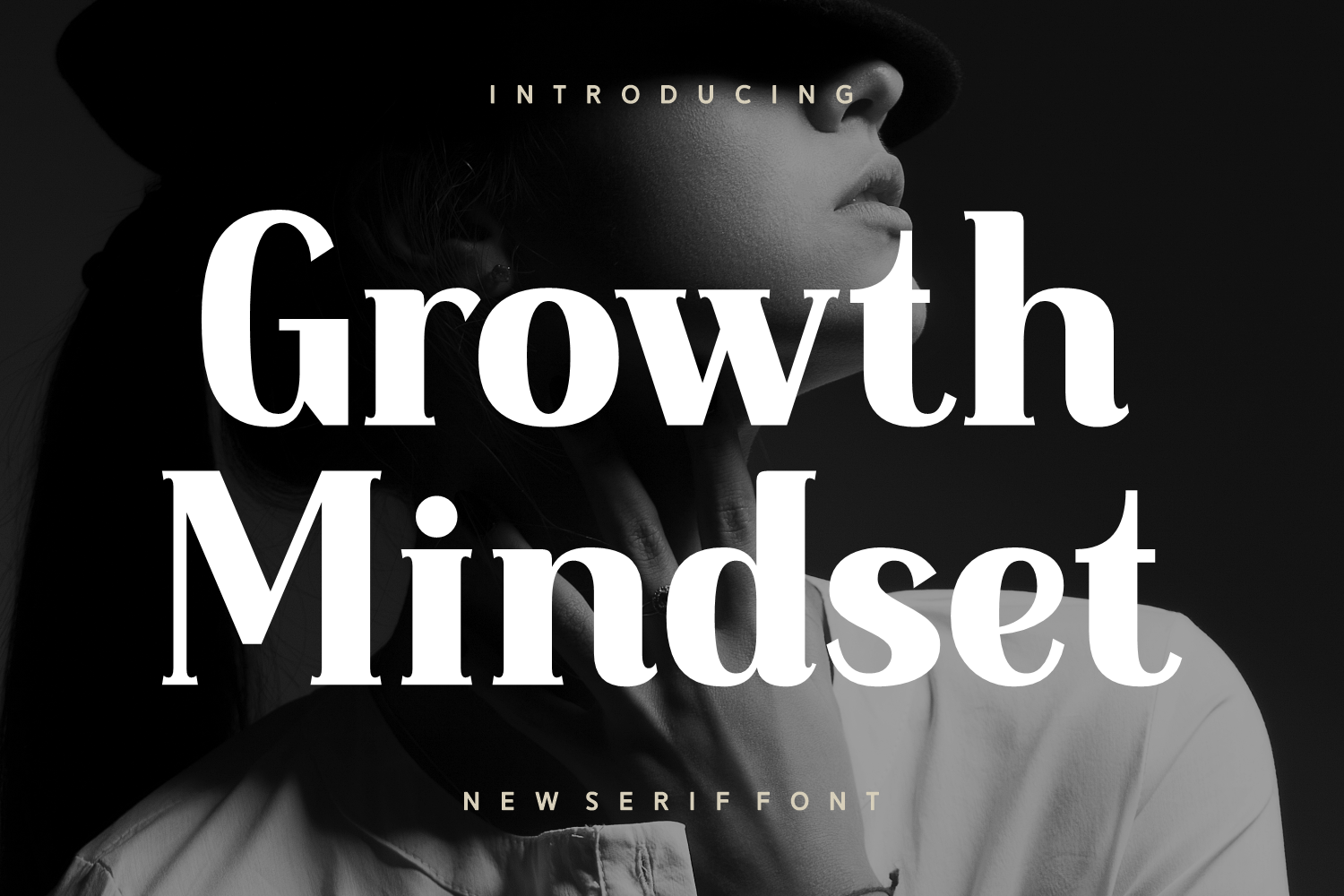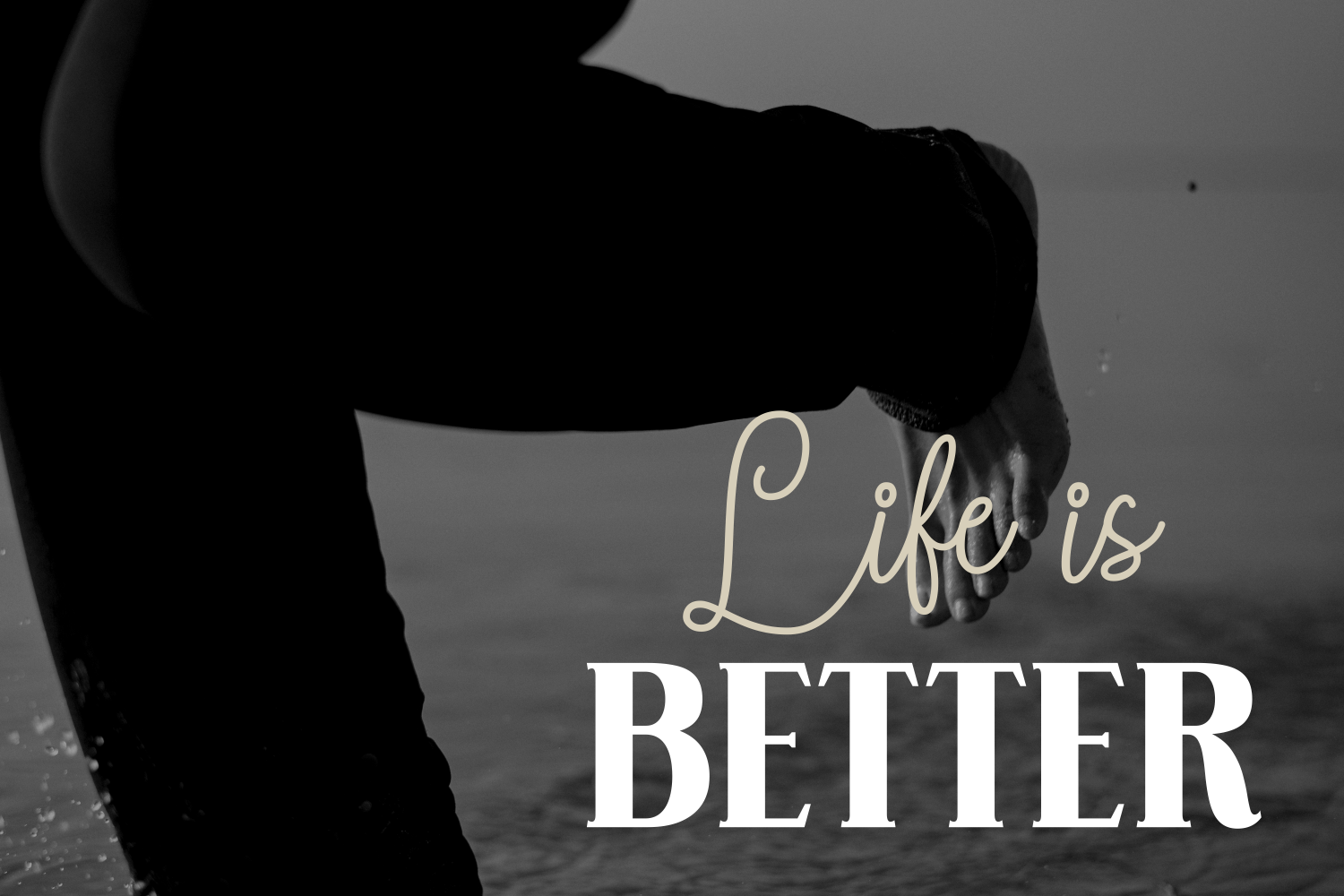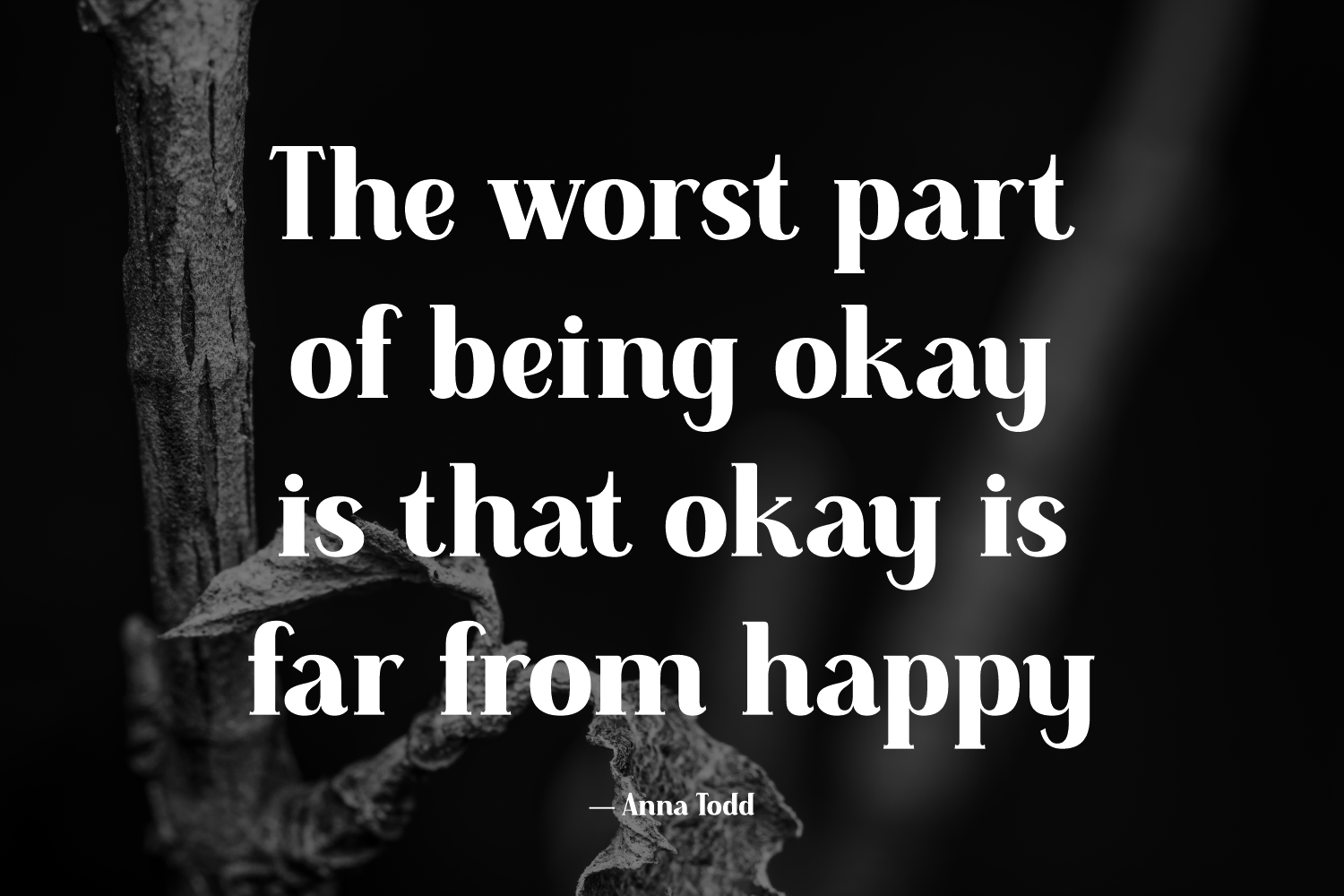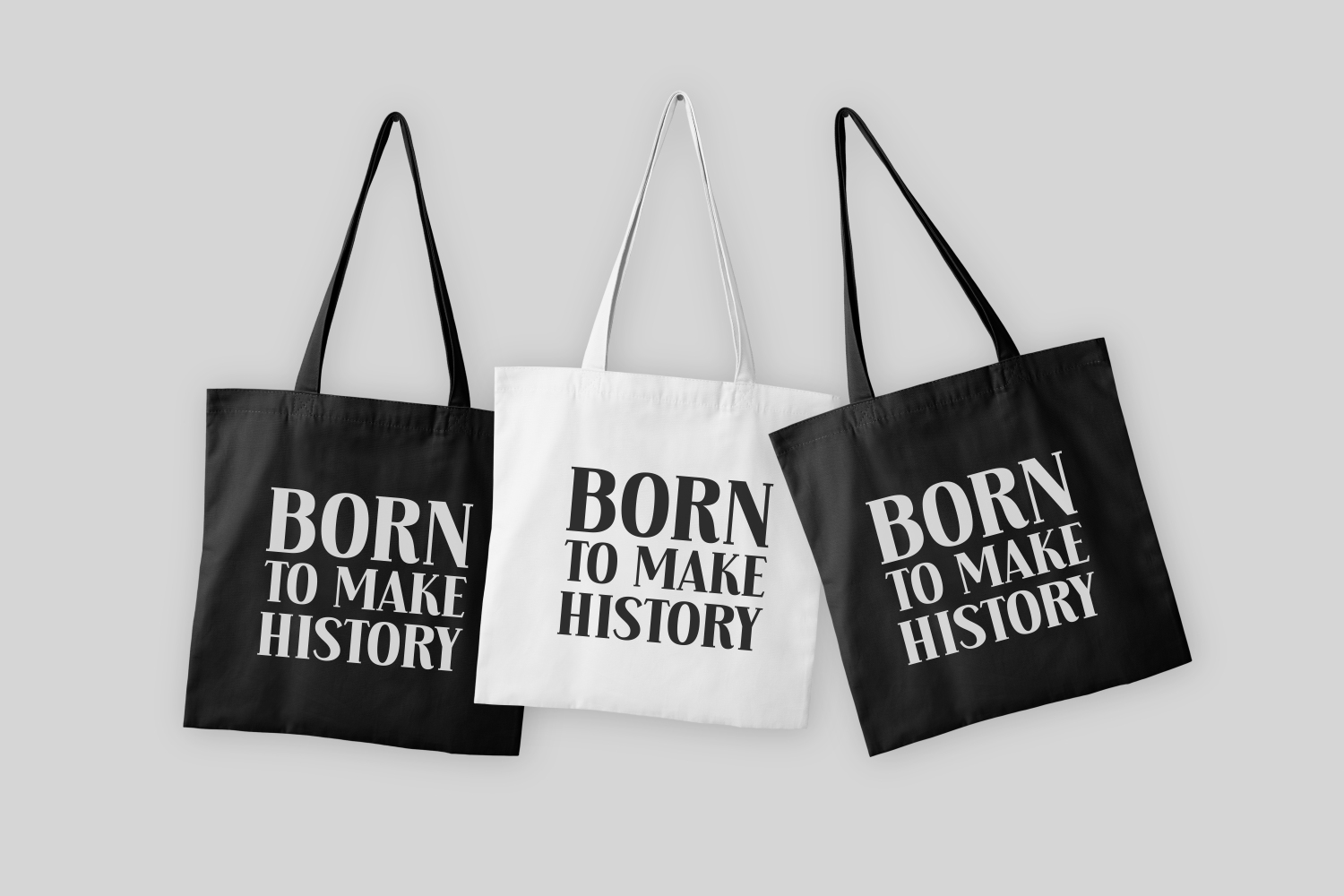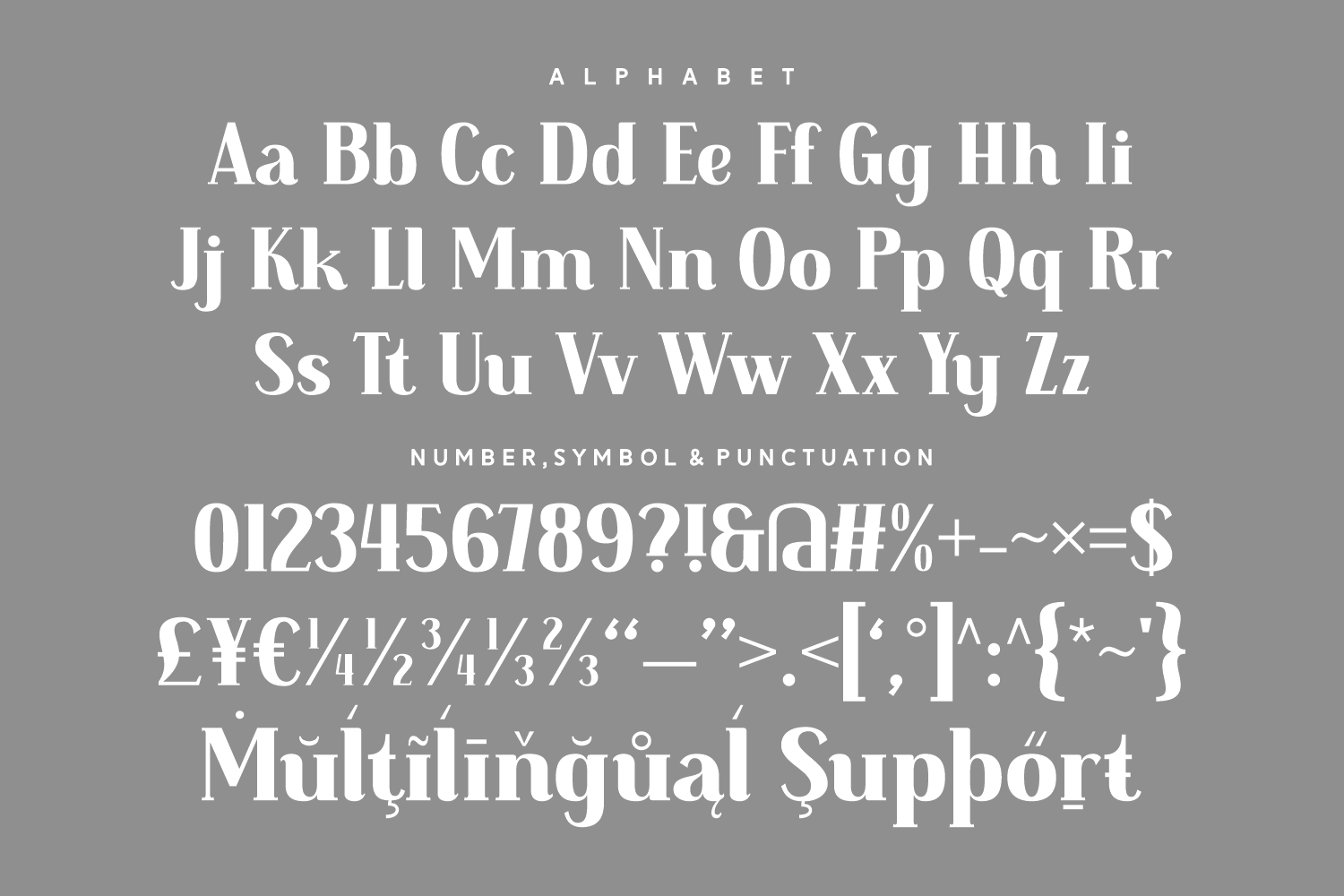
Growth Mindset is a bold modern serif font that commands attention with refined strength and classic confidence. Balancing tradition with a contemporary feel, this font offers great readability and full multilingual support—perfect for projects that need to inspire with clarity and elegance.